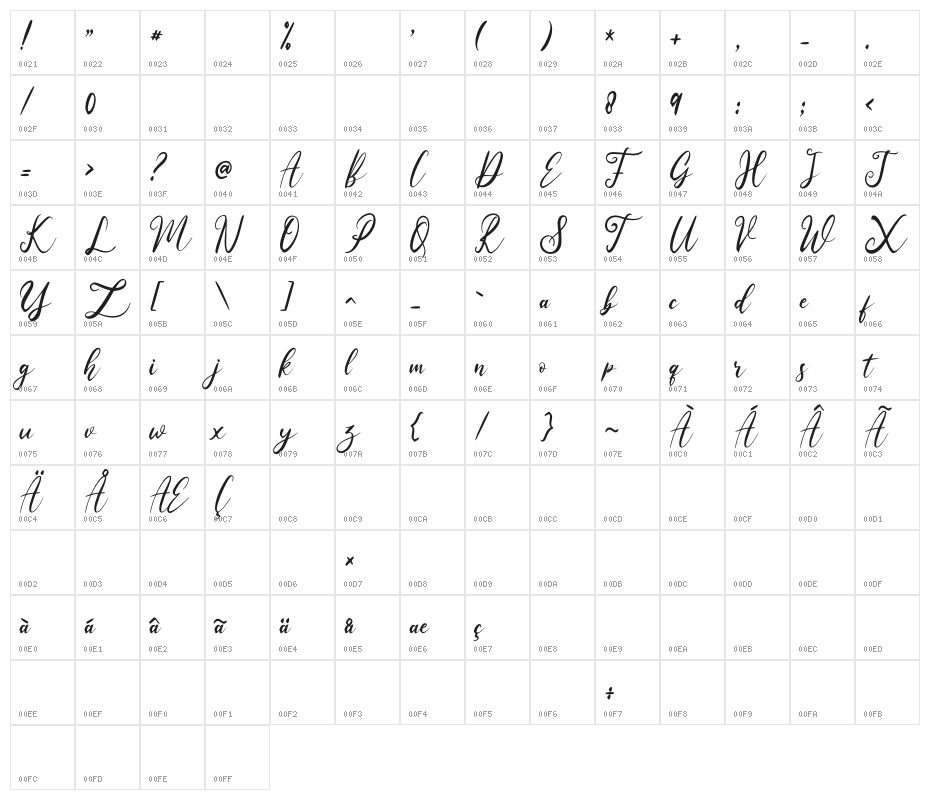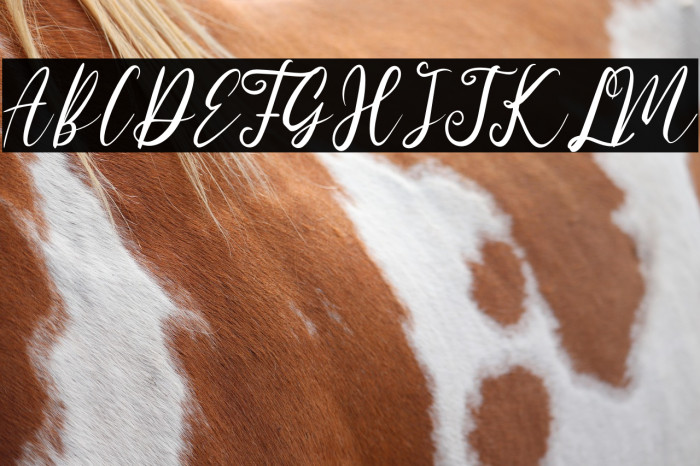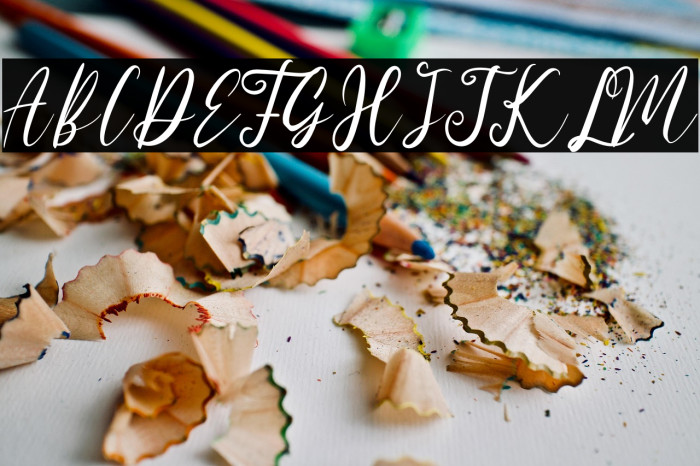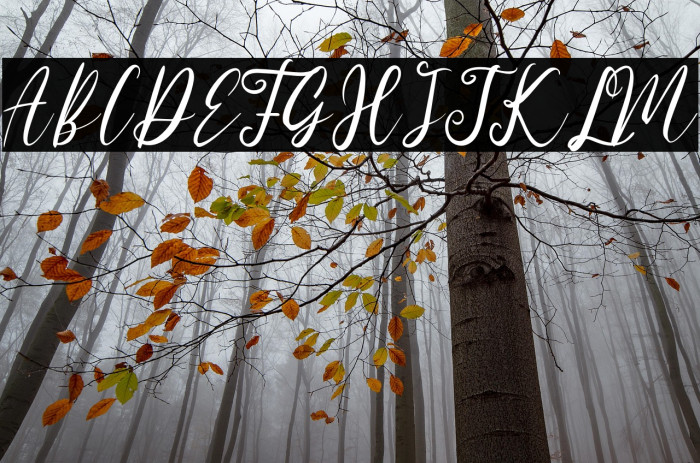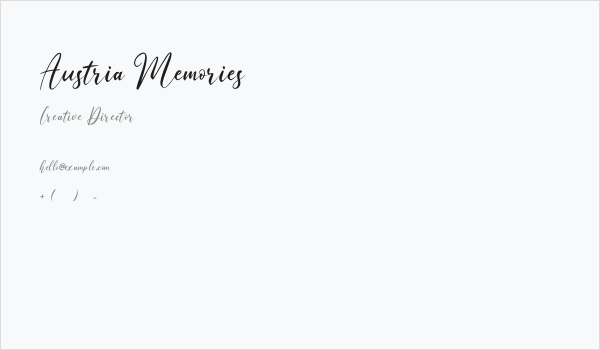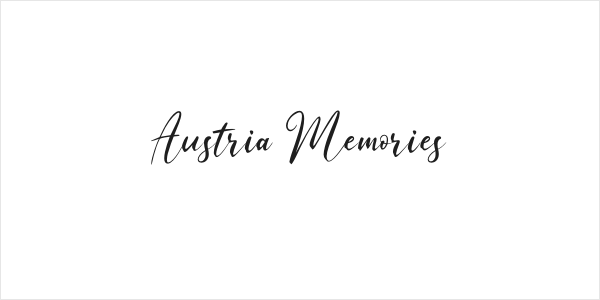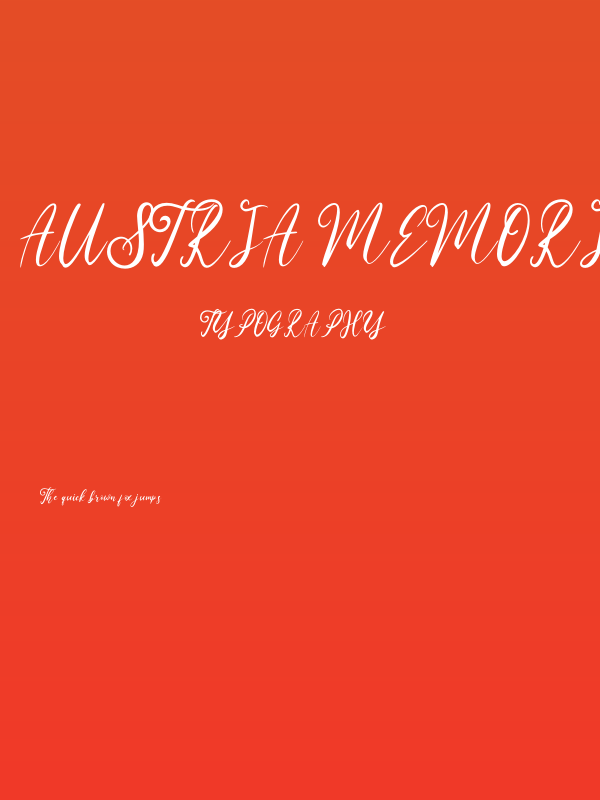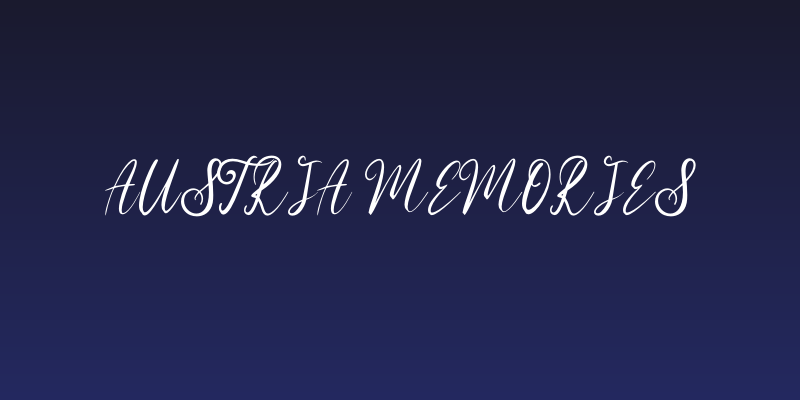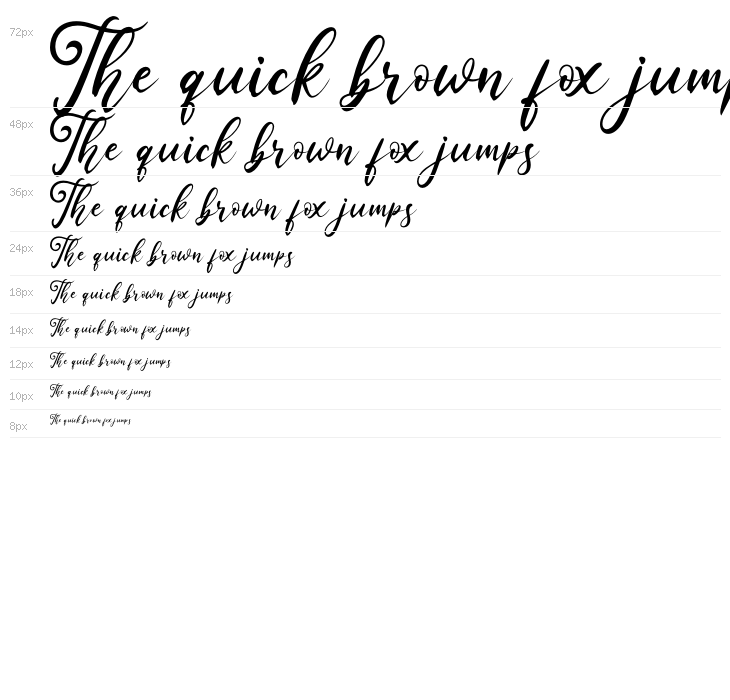
Austria Memories Font
Austria Memories Description
This font features an elegant and flowing script style, characterized by its smooth, cursive strokes and graceful curves. The uppercase letters are particularly ornate, with sweeping lines that convey a sense of sophistication and fluidity. The lowercase letters maintain a consistent style, offering a harmonious blend of formality and readability. Numbers and special characters are designed with the same attention to detail, ensuring a cohesive look across all elements. The overall appearance is both stylish and versatile, making it suitable for a variety of design applications.
| Overall Style | Elegant, Decorative |
| Proposed Projects | Ideal for wedding invitations, elegant branding, greeting cards, and decorative signage. |